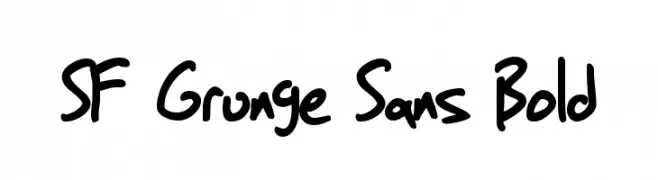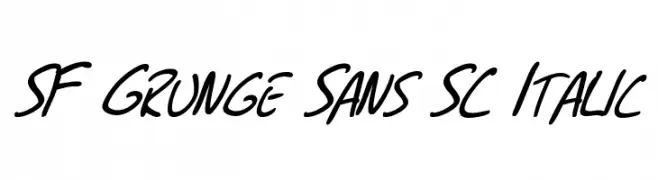
( Fonts by Ben Nathan )
A bold, distressed font with a grungy, textured appearance.
A distressed, grungy font with an ink-splattered appearance.
( Fonts by Ben Nathan )
A bold, distressed font with a rough, textured appearance ideal for grunge or horror themes.
A bold, geometric font with a modern, futuristic style.
A bold, distressed font with a grunge, textured style.
( Font by Berry Brooks - Fontocide )
A bold, distressed font with a grunge and rebellious style.
( Fonts by Gyom Seguin - last-soundtrack.daportfolio.com )
A distressed, grungy font with a textured, artistic style.
( Fonts by Jonathan Paquette - www.jonathanpaquette.com )
A bold, distressed font with a grunge, textured style.
A bold, distressed font with a grungy, energetic texture.
( Fonts by Jonathan Paquette - www.jonathanpaquette.com )
A bold, distressed font with a grungy, textured style.
( Fonts by www.junkohanhero.com )
A distressed, grungy font with a cut-out newspaper style.
( Fonts by Jay Hilgert - www.bittbox.com )
A distressed, grunge-style font with a bold, weathered appearance.
( Fonts by Andrew Hart - dirt2.com )
A bold, distressed font with a grunge texture and star motifs, ideal for edgy designs.
( Fonts by Christopher Hansen )
A bold, distressed font with a rugged, grunge-like appearance.
A bold, distressed font with a rugged, grunge aesthetic.
A bold, distressed font with a grunge, hand-drawn aesthetic.
( Fonts by Jonathan Paquette - www.jonathanpaquette.com )
A bold, distressed font with a grunge texture and rugged appearance.
A bold, distressed font with a grunge, hand-drawn style.
( Fonts by Gyom Seguin - last-soundtrack.daportfolio.com )
A bold, distressed font with a rugged, grunge style.
( Fonts by www.abecedarienne.com )
A distressed, grunge-style font with a vintage yet modern appeal.
( Fonts by www.junkohanhero.com )
A bold, distressed font with a grunge aesthetic and dynamic character shapes.